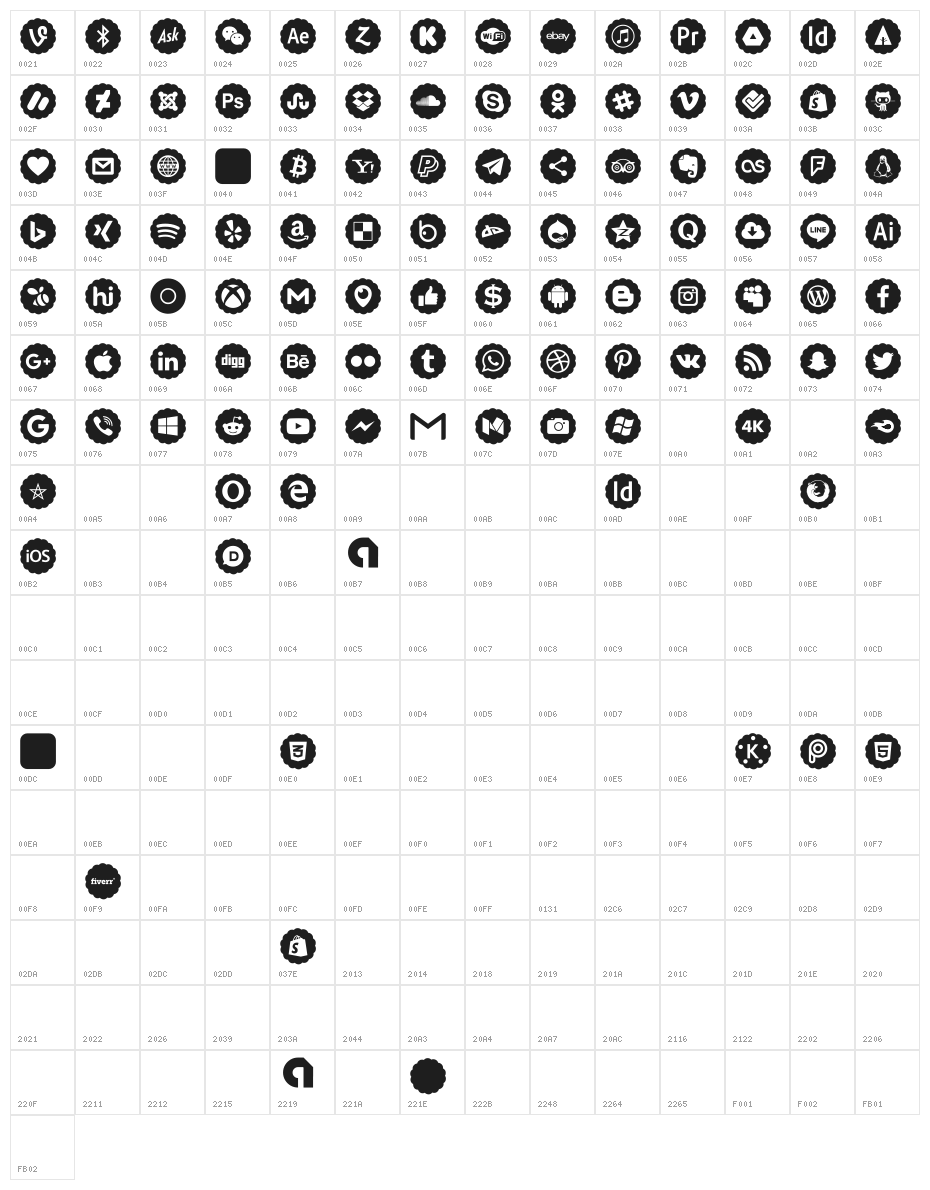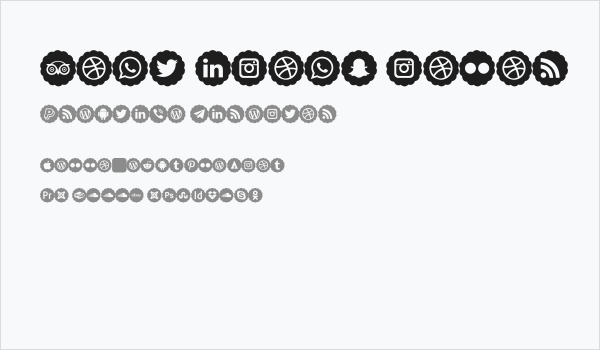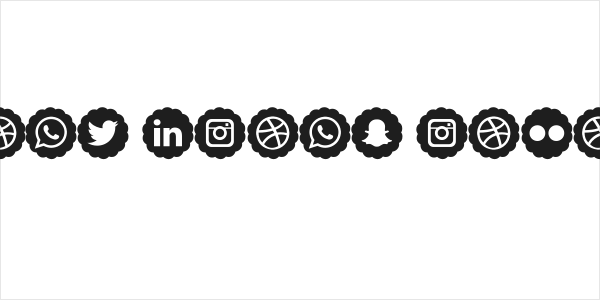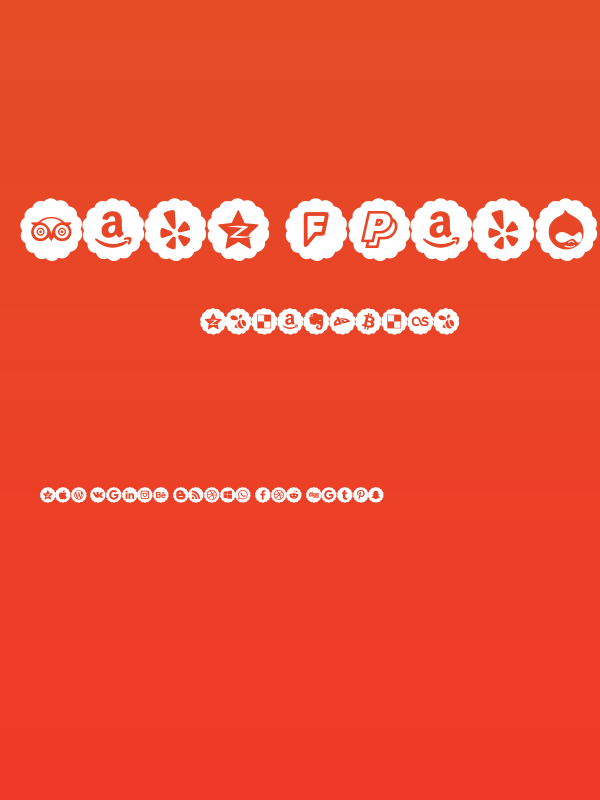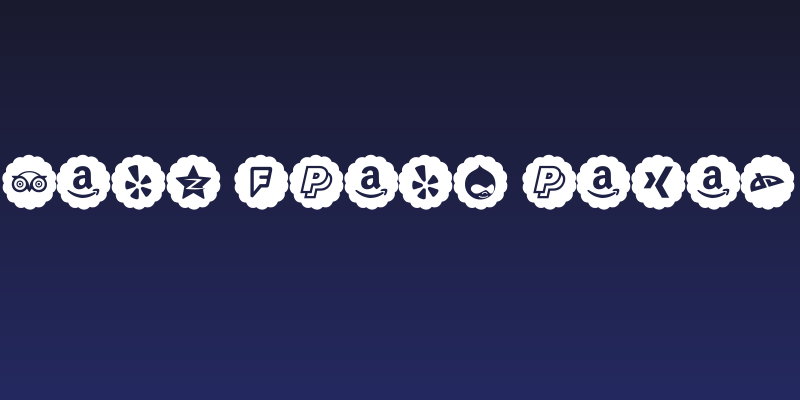
Font icons color Description
A collection of monochrome, scalloped-edge circular icons featuring various social media, tech, and web service logos in white on a solid black background. The icons are bold, highly legible, and uniform in style, making them suitable for consistent branding or UI use.
| Use Case | Icons, UI elements, Social media links, Branding |
| Proposed Projects | App interfaces, website social media links, branding kits, digital dashboards, presentations. |